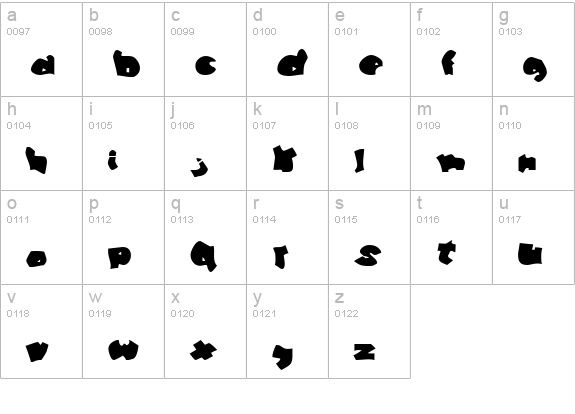
Manilla Oddtype Font Details
Manilla Oddtype is a stunning font that exudes a unique and captivating charm. Its unconventional design evokes a sense of intrigue and mystery, making it the perfect choice for those seeking to add a touch of eccentricity to their designs. With its bold and irregular letterforms, Manilla Oddtype grabs attention and demands to be noticed. Each character is meticulously crafted, showcasing a delightful balance between elegance and quirkiness. This font is sure to make a statement and leave a lasting impression. One of the most remarkable aspects of Manilla Oddtype is that it is completely free. Yes, you read that right! This extraordinary font can be freely downloaded at FontsMarket.com. You can now enhance your creative projects without having to worry about breaking the bank. Whether you're working on a logo, branding materials, or a striking poster, Manilla Oddtype will elevate your design to new heights. Its versatility allows it to be used in a multitude of contexts, adding a touch of playfulness and originality to any project. Don't miss out on the opportunity to unleash your imagination with Manilla Oddtype. This one-of-a-kind font is waiting for you, ready to breathe life into your creations. Download it for free today at FontsMarket.com and let your designs stand out from the crowd.